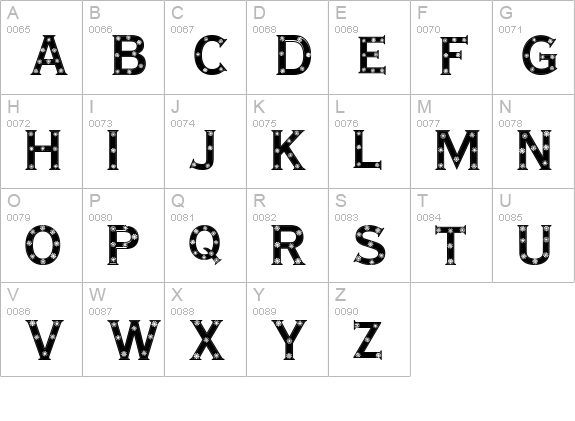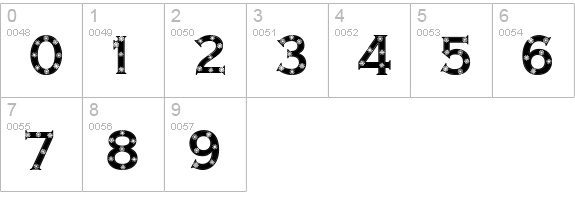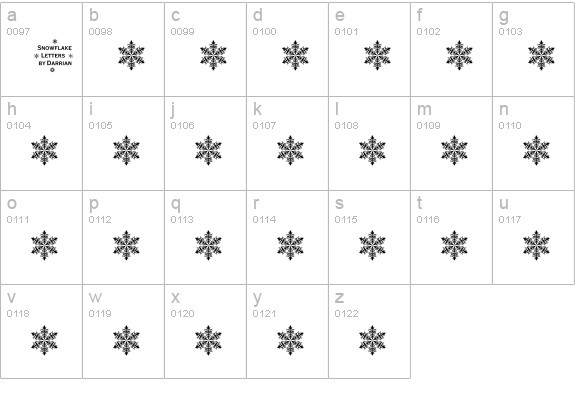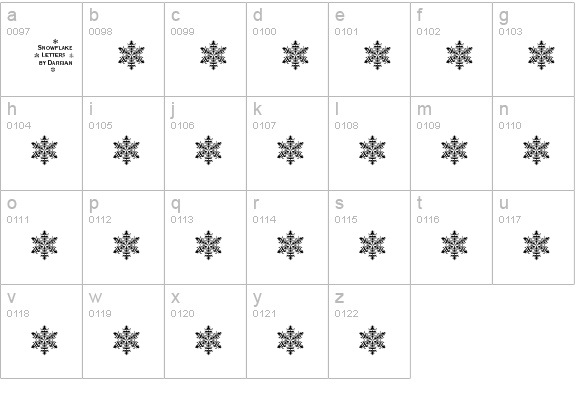
Snowflake Letters Font Details
Introducing Snowflake Letters, a whimsical and enchanting font that will transport your designs to a winter wonderland. With its delicate curves and intricate details, this font is perfect for adding a touch of elegance to any project. Snowflake Letters is not only visually stunning, but it also embodies the spirit of the season with its frosty charm. Each letter is uniquely shaped, resembling a delicate snowflake that dances in the crisp winter air. This font truly captures the magic of the holiday season, making it a must-have for any designer looking to evoke a sense of enchantment in their work. But the best part? Snowflake Letters is completely free! That's right, you can download this stunning font at absolutely no cost on FontsMarket.com. Whether you're working on a holiday card, a festive invitation, or a winter-themed poster, this font will add a touch of whimsy and sophistication that will delight your audience. So why wait? Embrace the beauty of the winter season with Snowflake Letters. Download it now for free on FontsMarket.com and let your designs sparkle like freshly fallen snow.